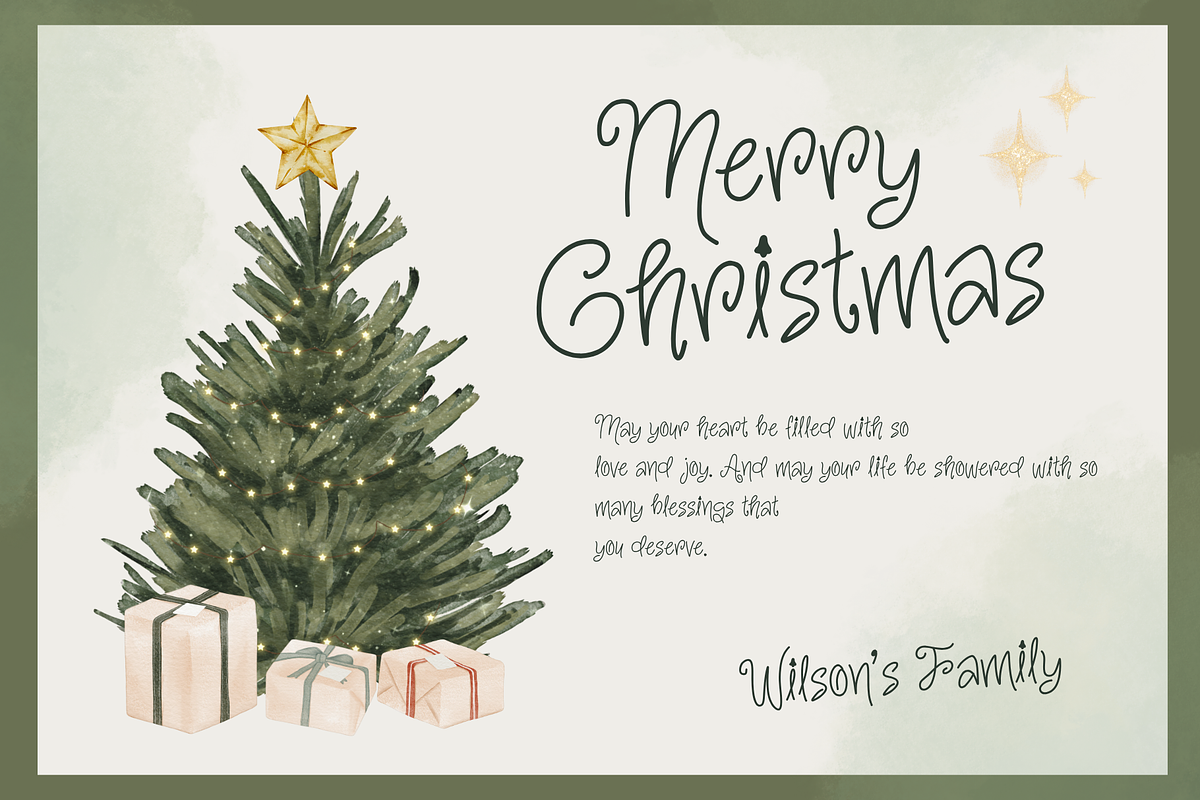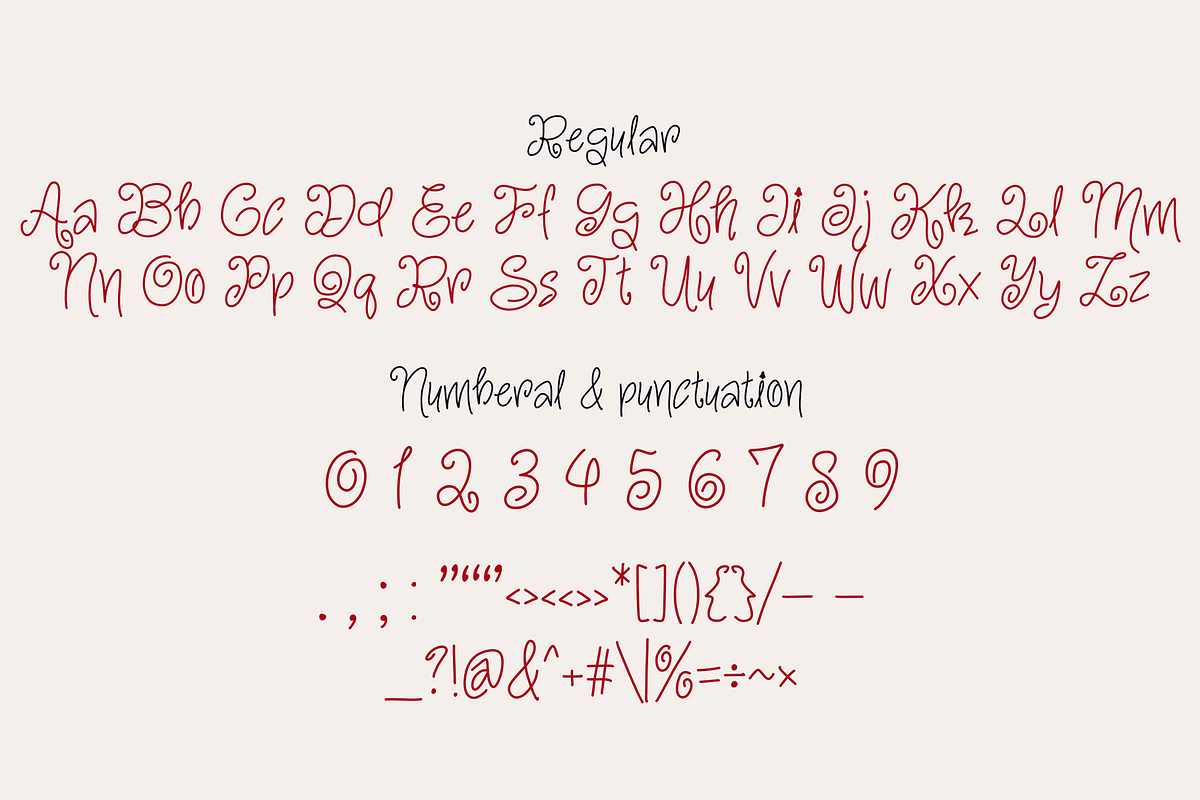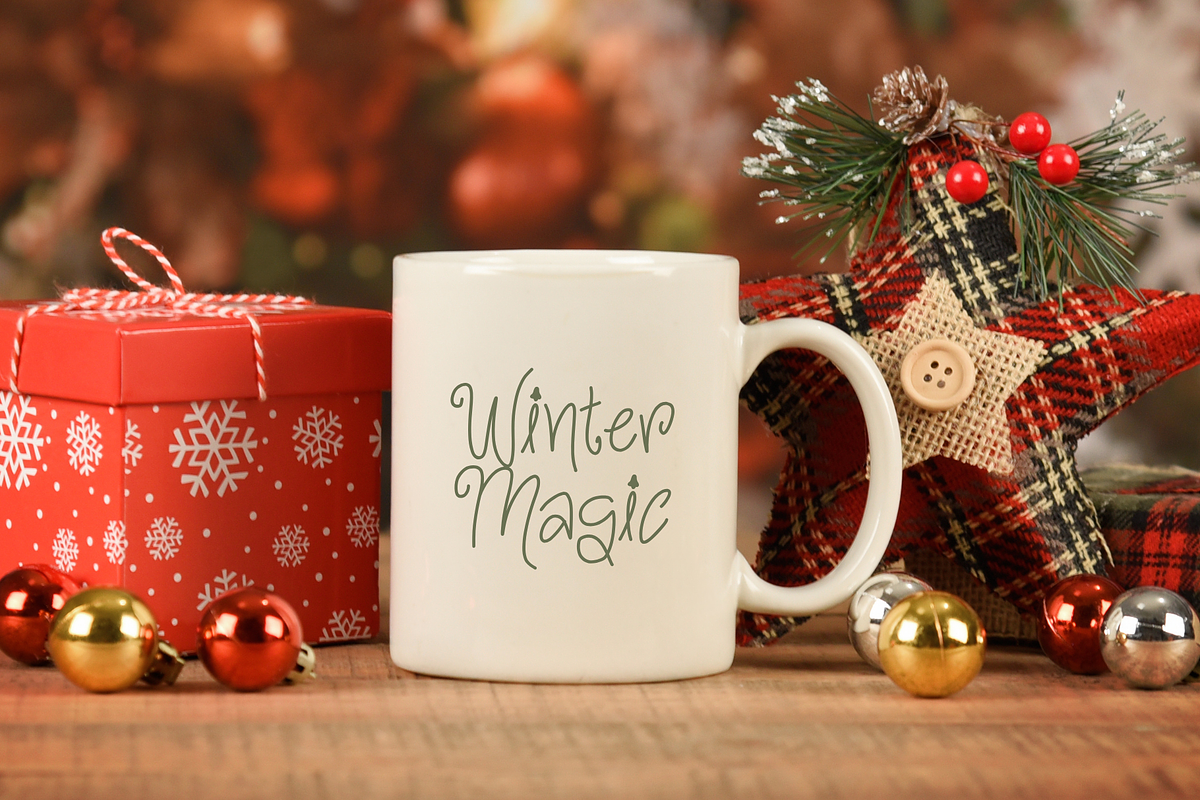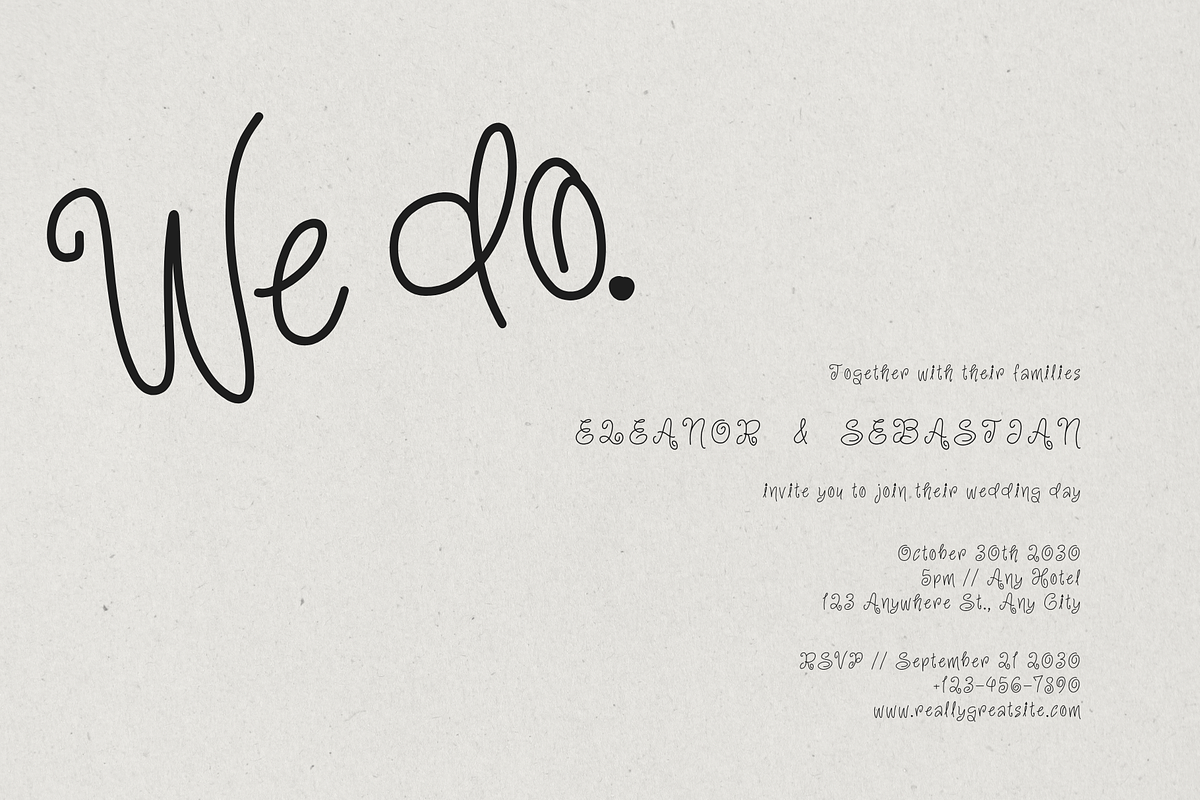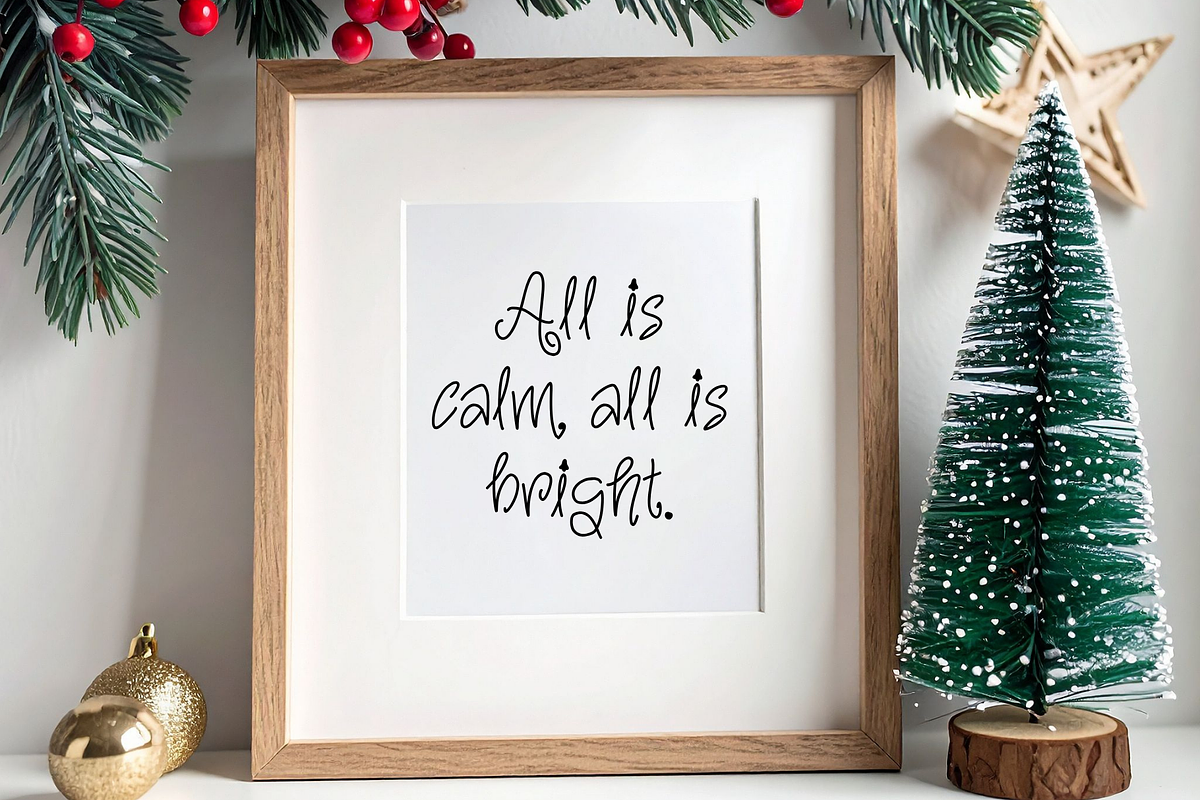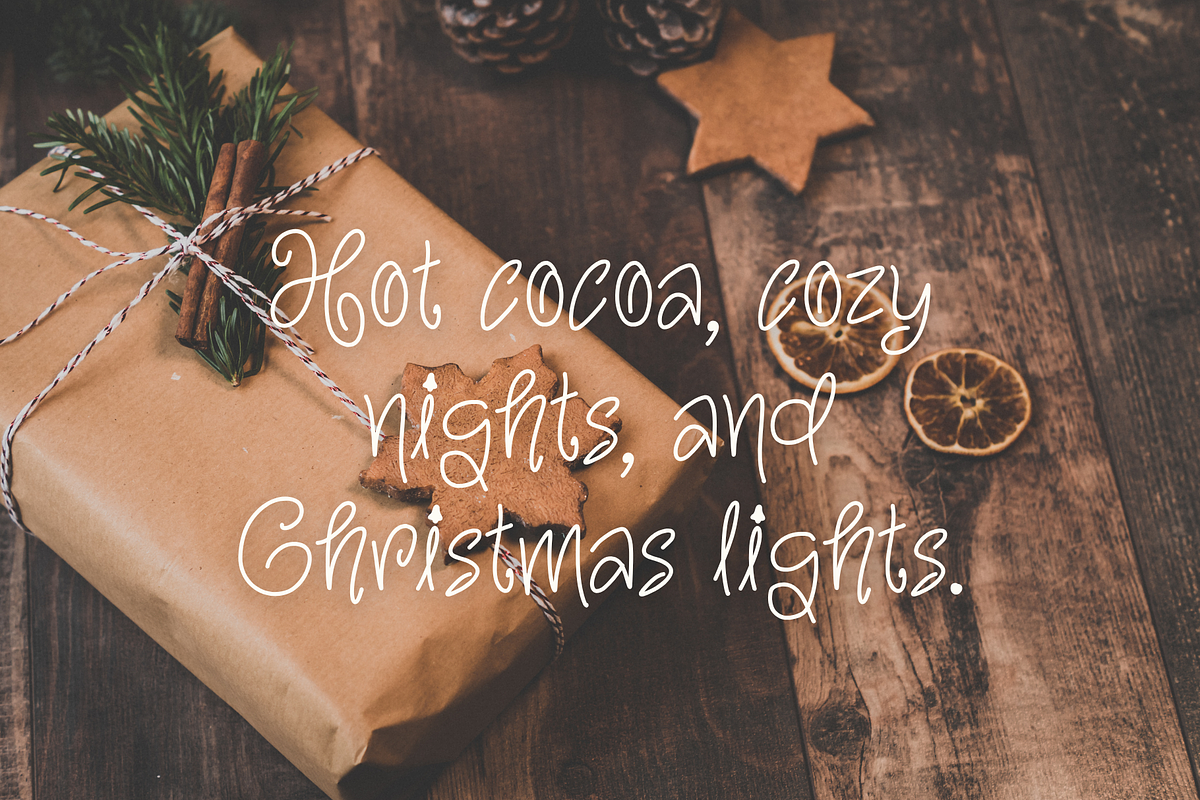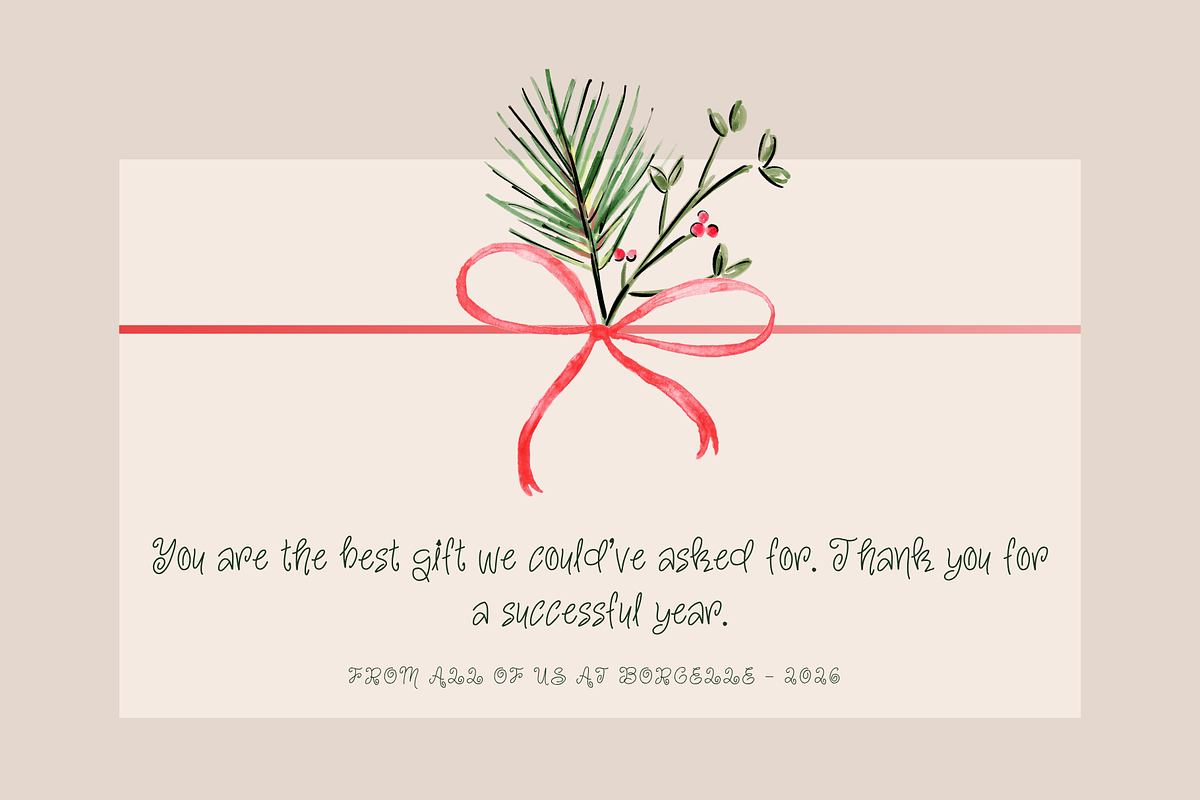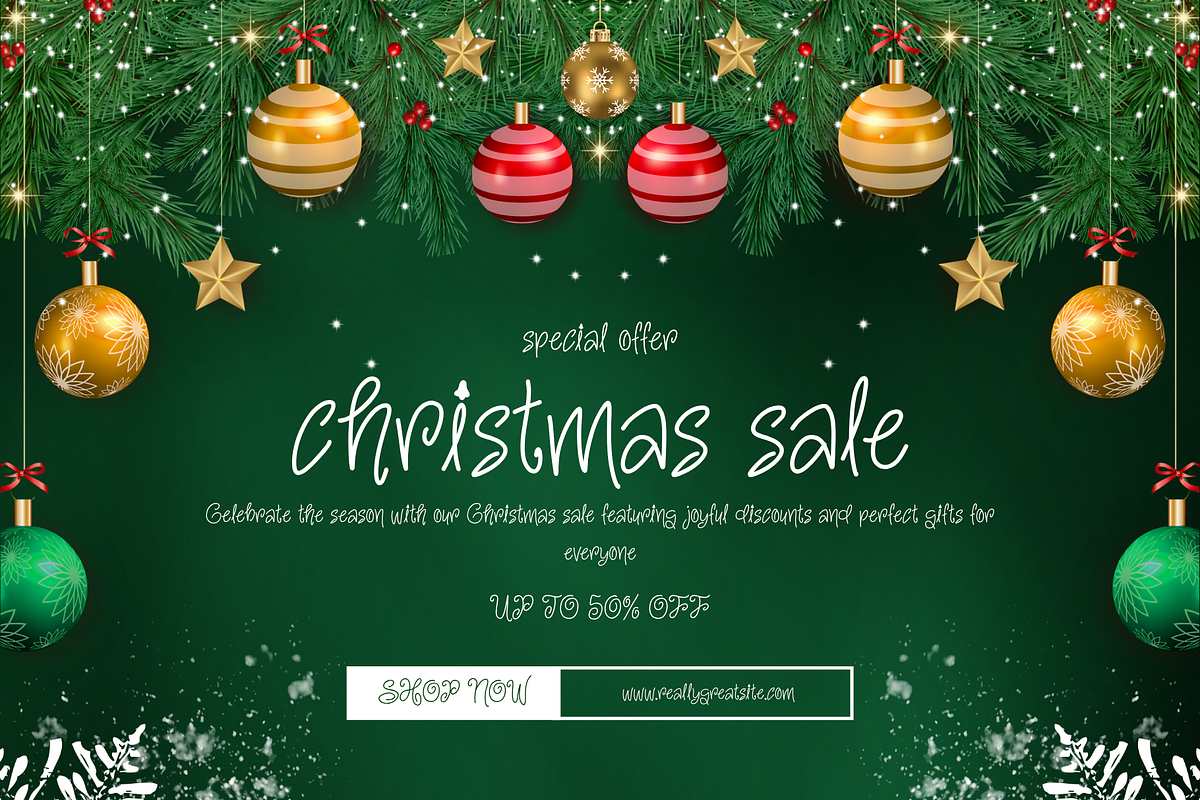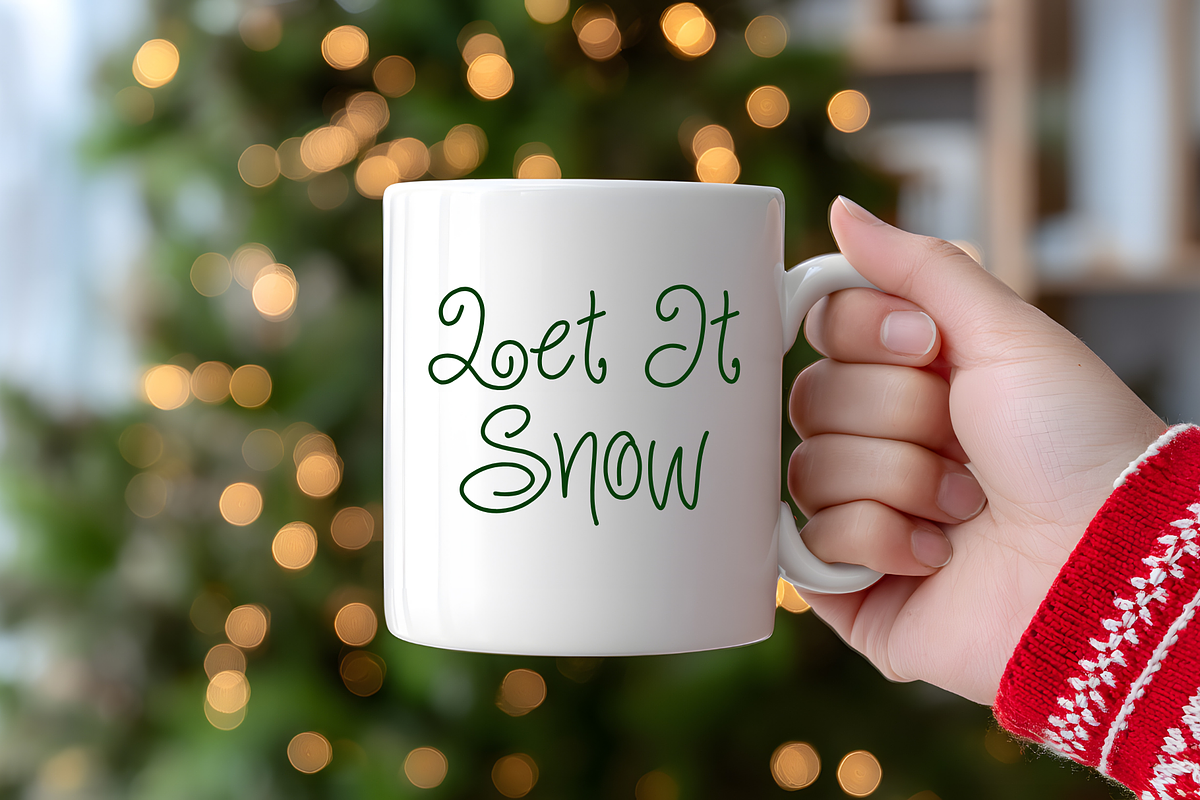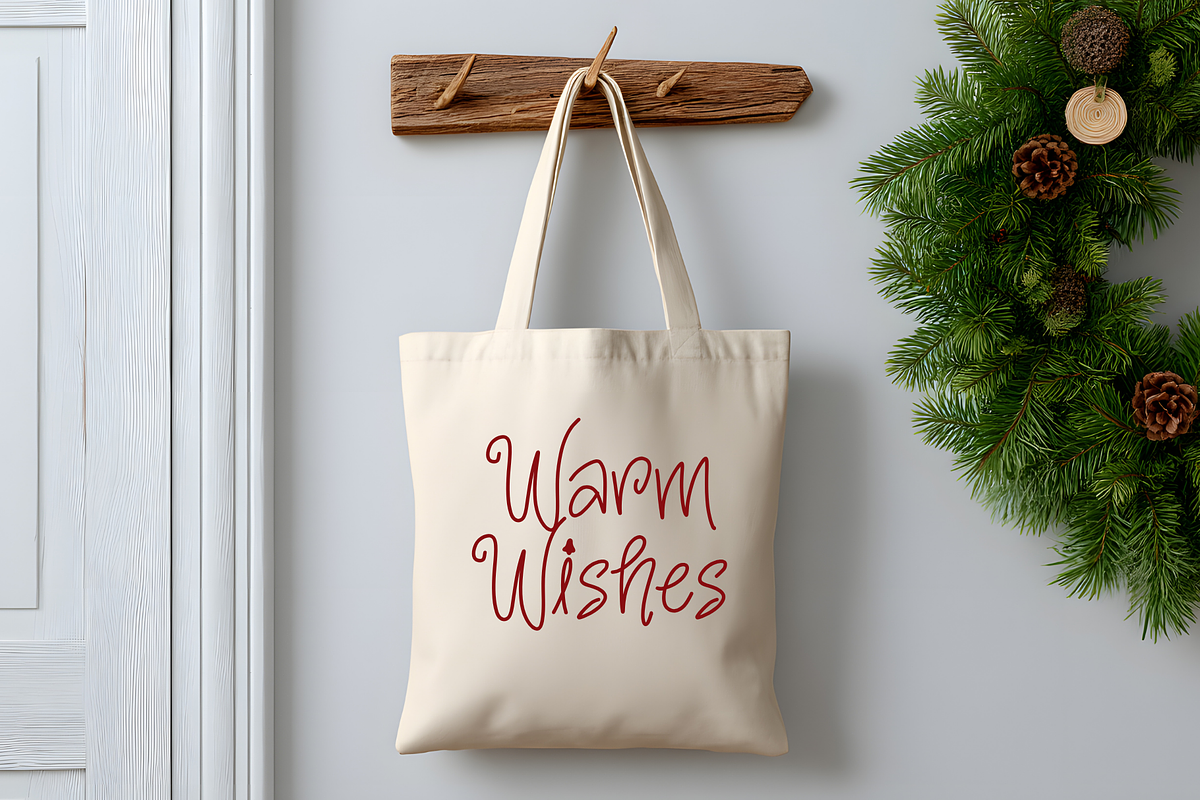
Secret Christmas - Handwritten font
Secret Christmas is a Christmas handwritten font. It embodies playfulness and authenticity and is the perfect choice for all your favorite projects, such as blog posts, logos, branding, ads, invitations, greeting cards, planners, photo albums, decorations, and more. Add it to any of your designs, and enjoy the results!